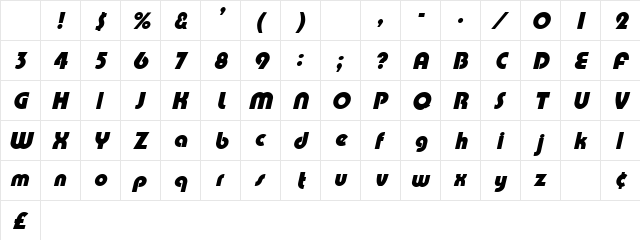
Sargasso is a composed and adaptable typeface that performs quietly and consistently across a wide range of design contexts. The slanted form adds forward momentum and visual energy.
Pro Tip: Use Sargasso for emphasis, pull quotes, and subheadings where its slanted energy can add rhythm to the layout.